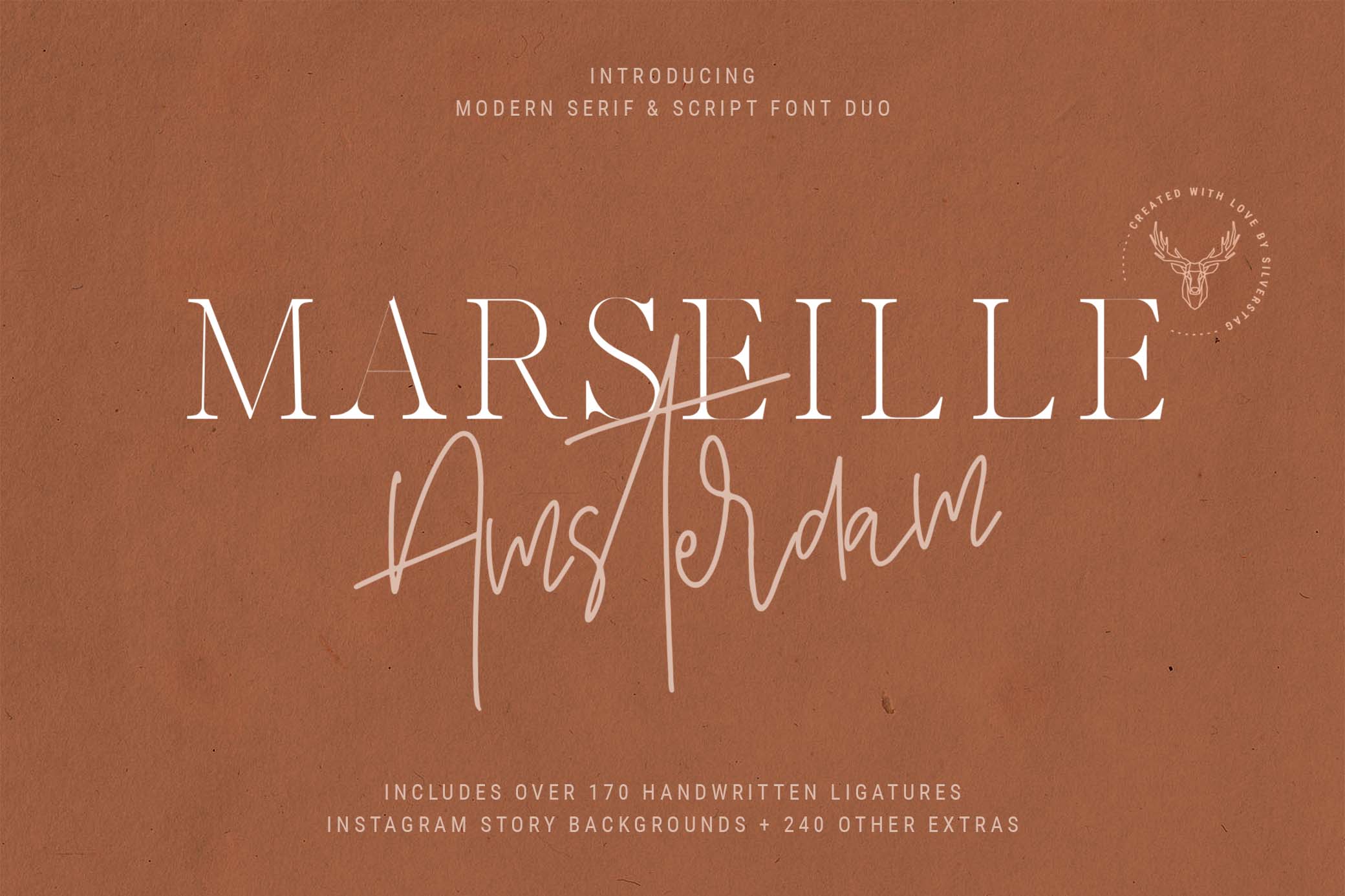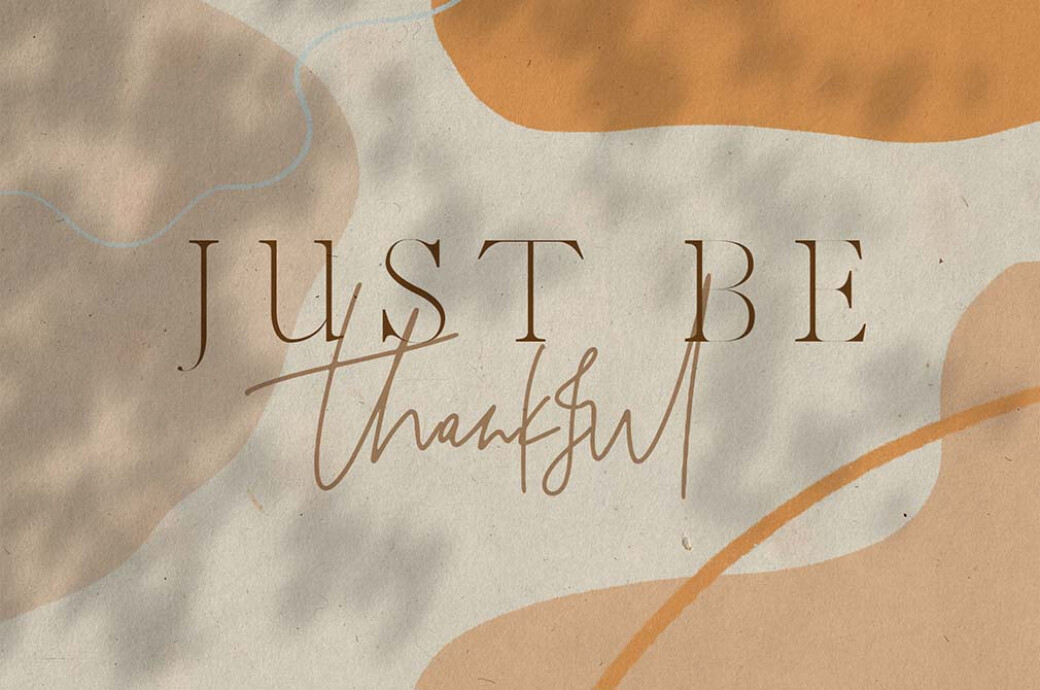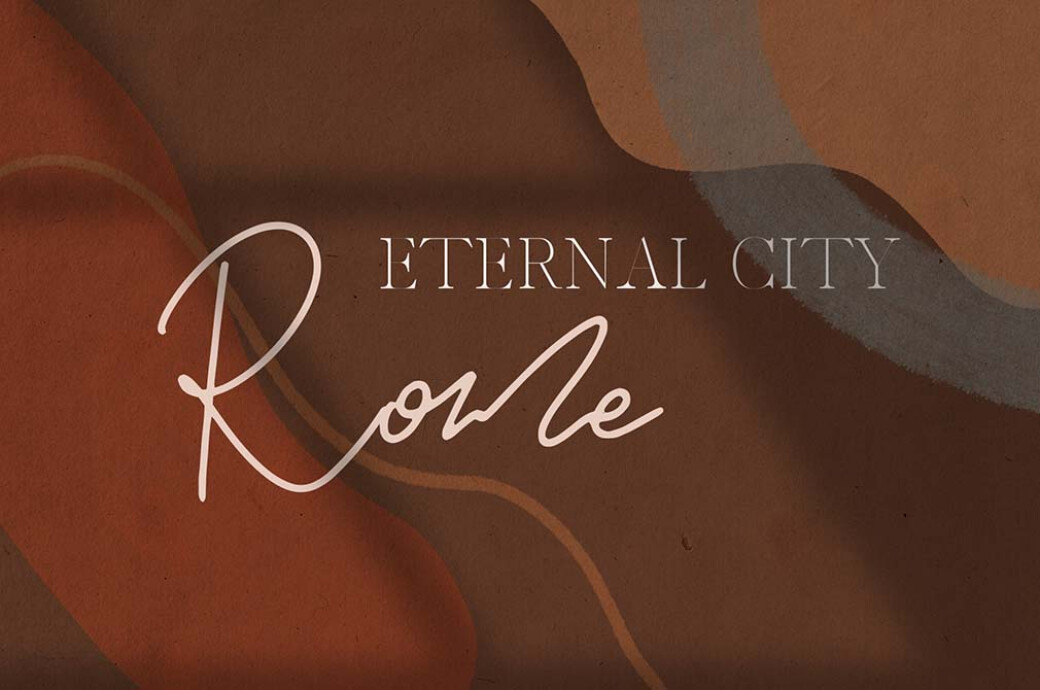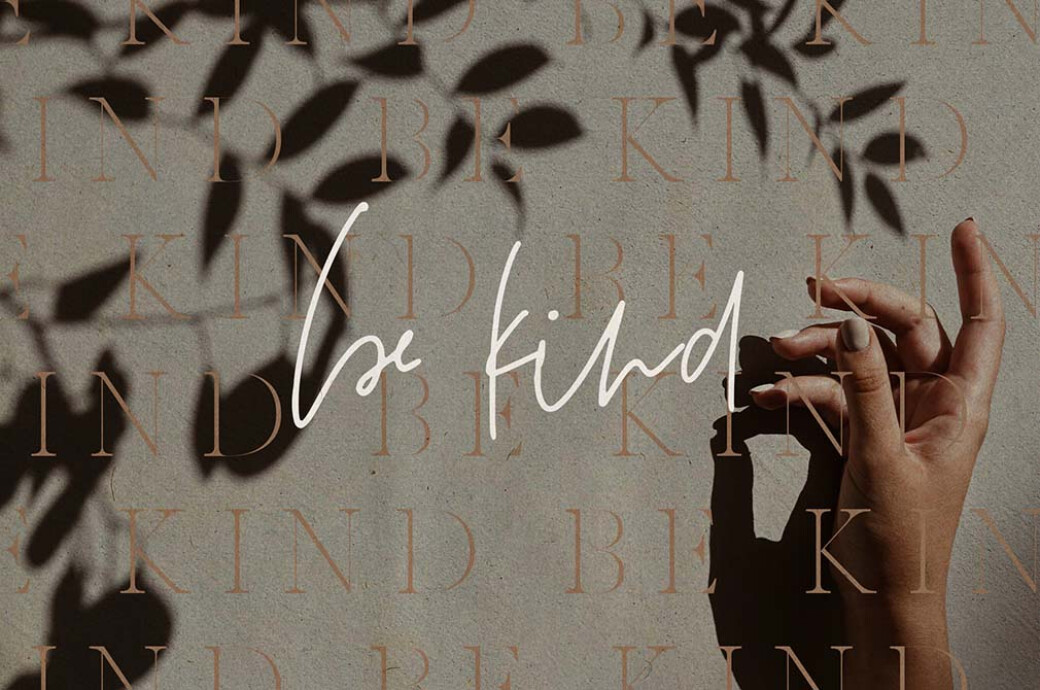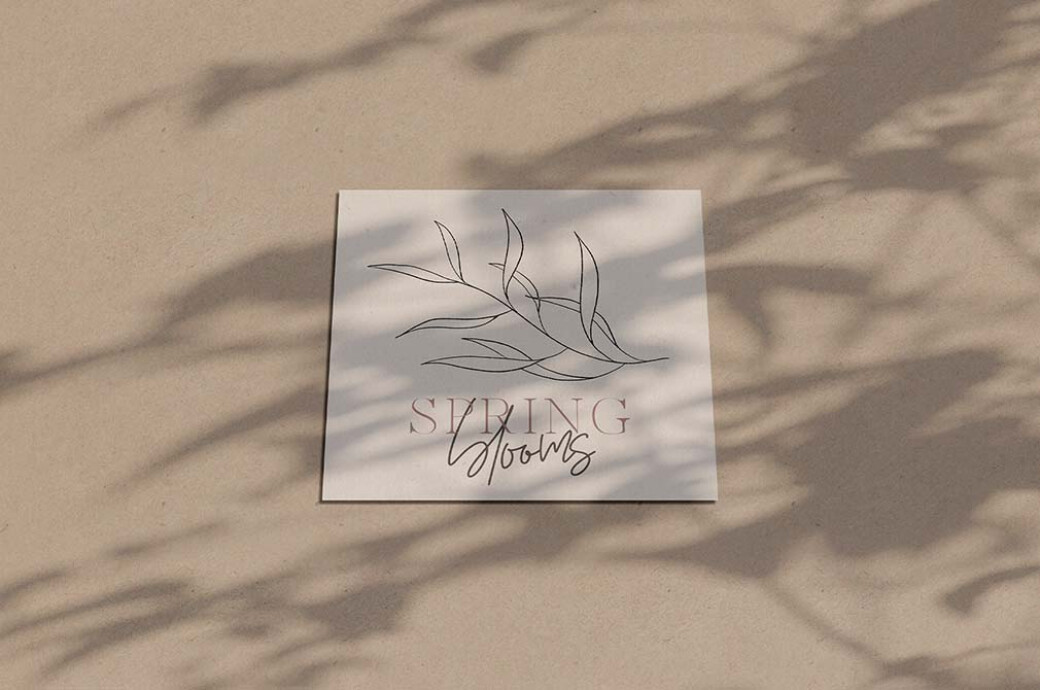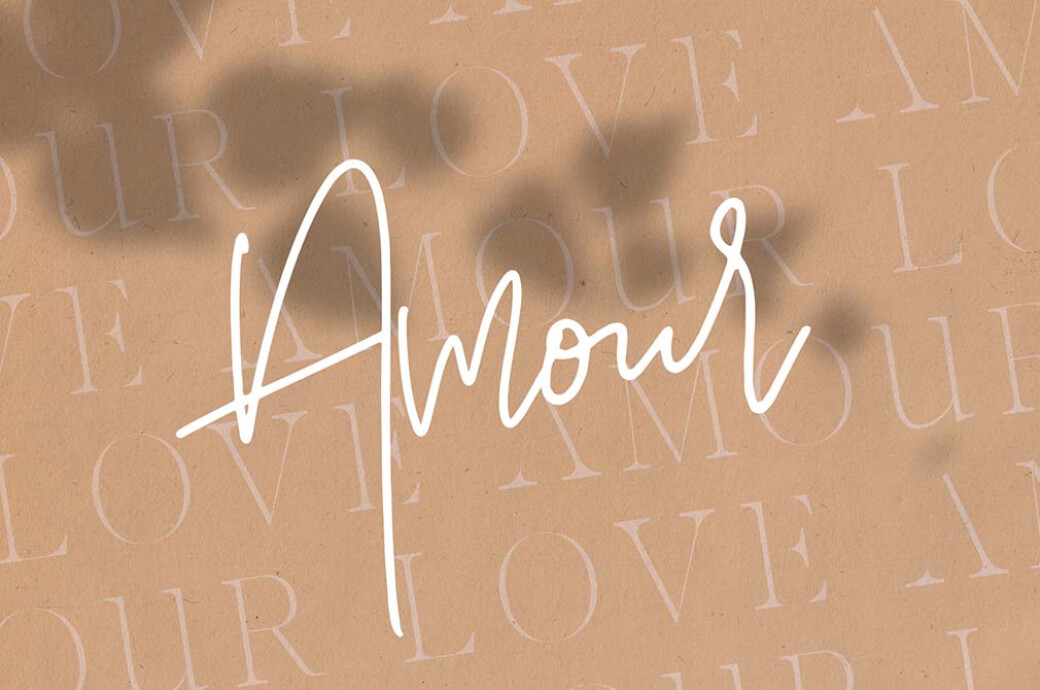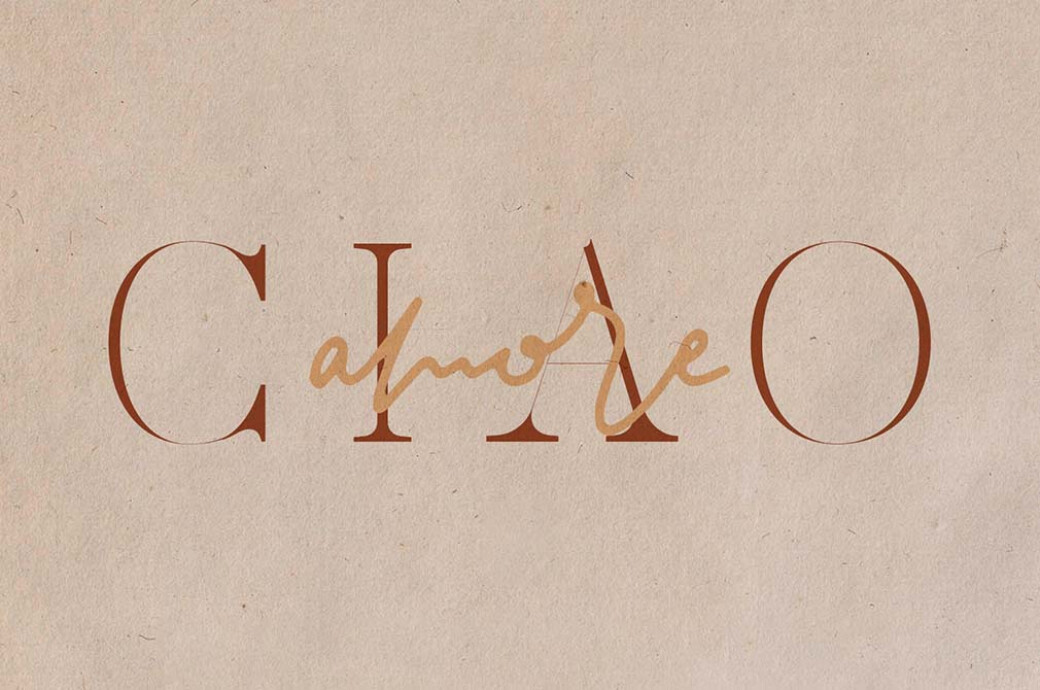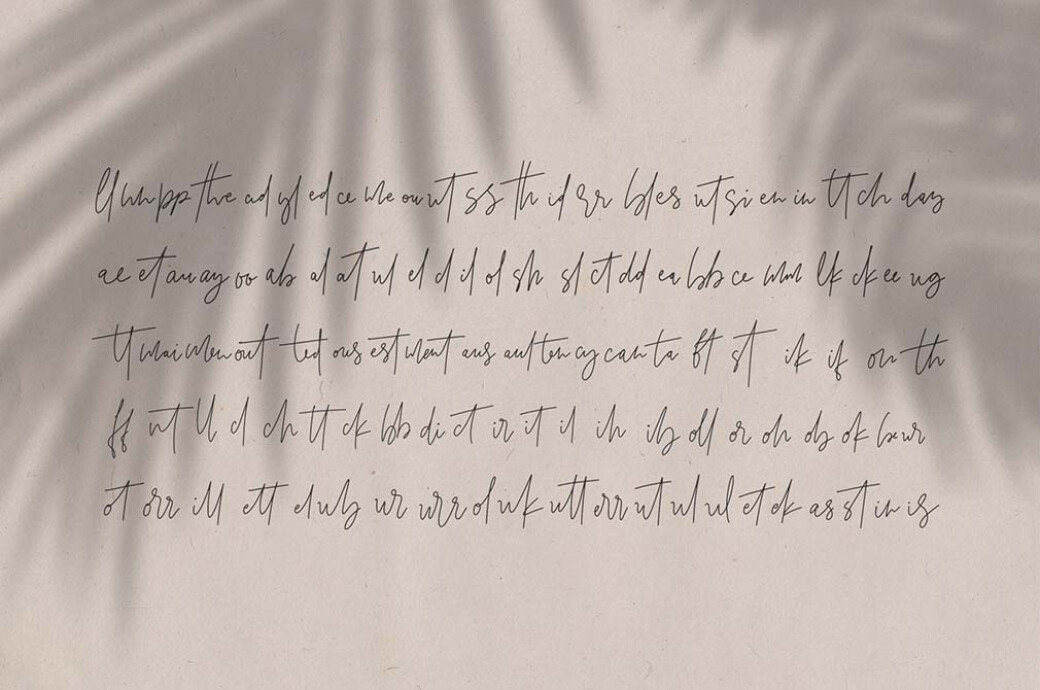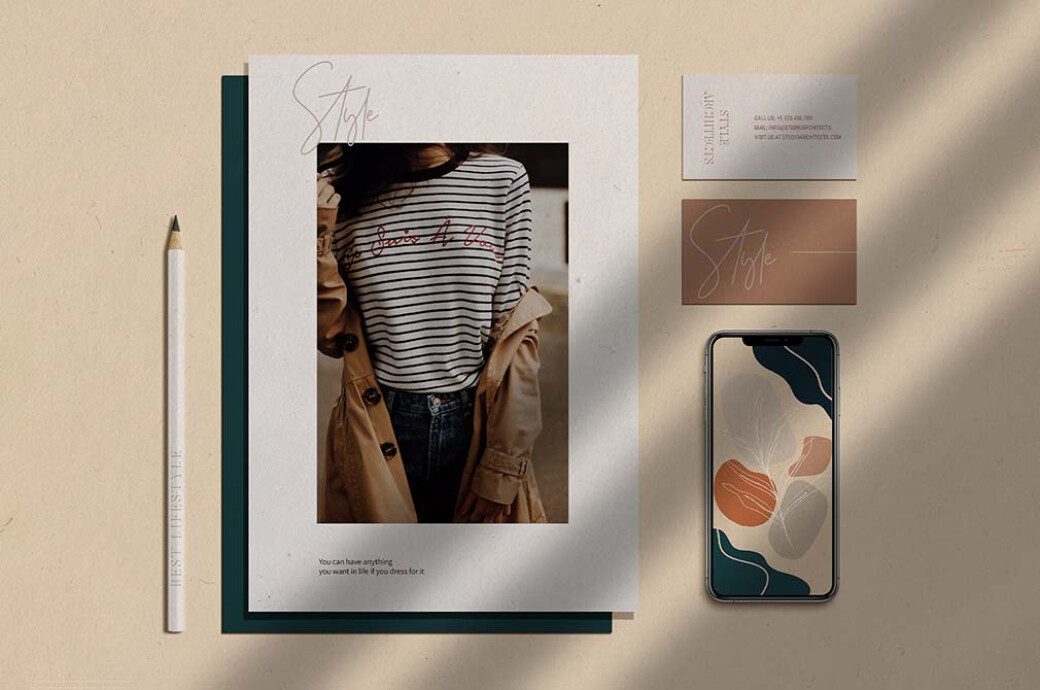
Marseille & Amsterdam Font Duo
Inspired by old French art and modern dynamism, this font duo is charged with character and style. Adding it to your designs guarantees an eye-catching result!While the elegance of Marseille found its place in a sophisticated serif, the script signature font of this duo is based on the bold and edgy style of Amsterdam. They work perfectly by themselves, but the real magic lies in their combination. The archive also includes over 240 hand-drawn elements, shapes, lines, words, foliage and 29 unique Instagram story backgrounds — a whole collection of tools to choose from!This resource is created, and fully compatible with Adobe Photoshop. For the best experience, we recommend to use the latest Creative Cloud version of the app.